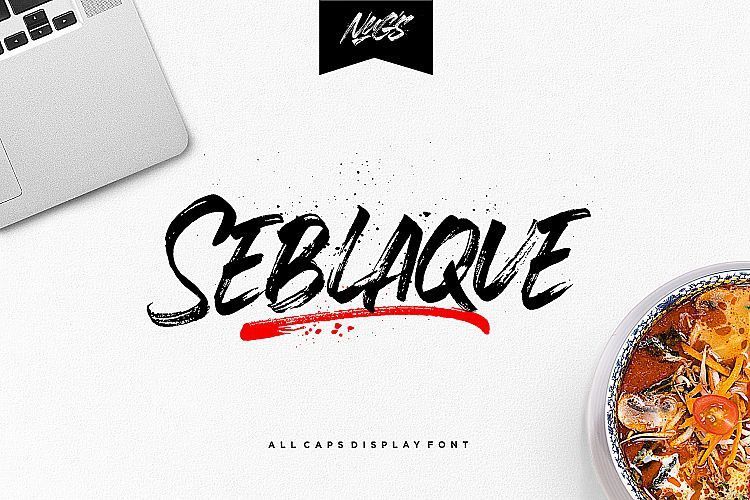
Seblaque Brush Font
Thanks for checking out new font on Befonts, This is a handwritten font with textured brush which makes it perfect for branding, logo, poster design and more!
Introducing Seblaque Font. Seblaque Feel is a hand drawn font that was created with a dry brush. Perfect for big displays, titles, posters, marketing & advertising.
Seblaque Font are good for movie titles, brand names, brending, archives, posters, logos, quotes, product packaging, clothing designs, book covers, and many more uses